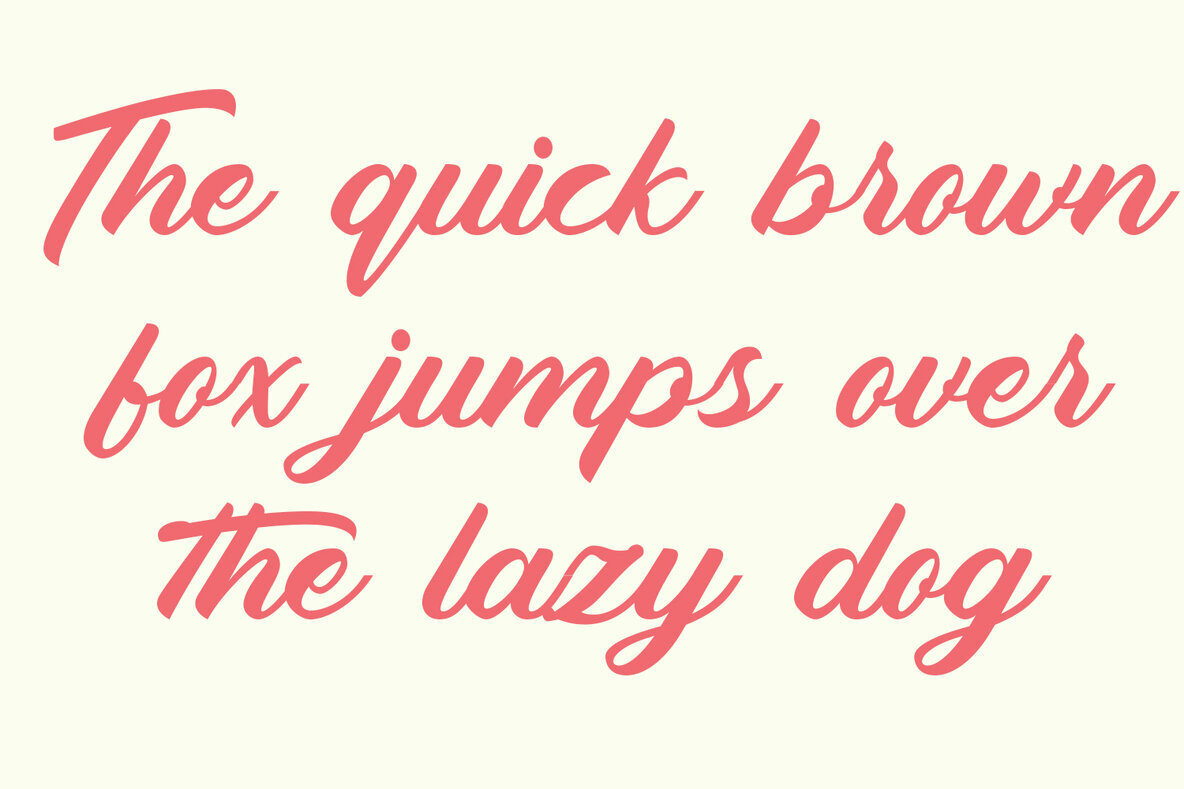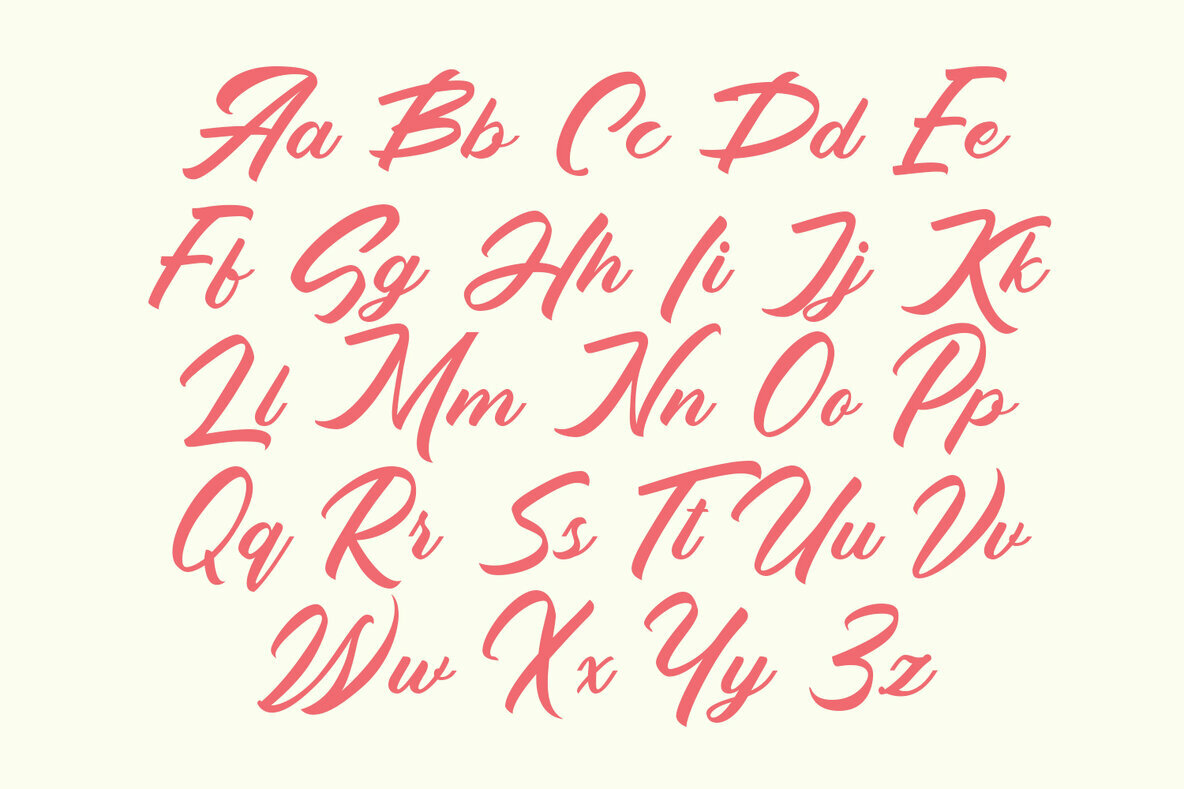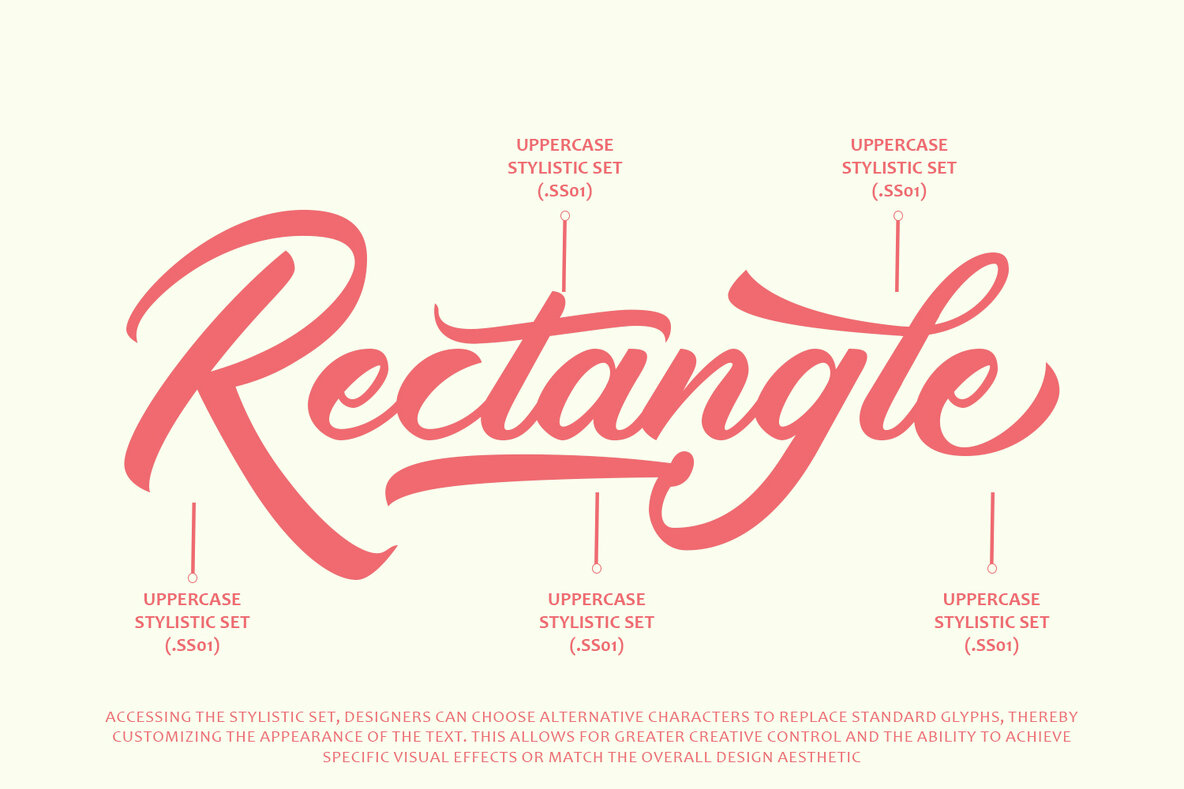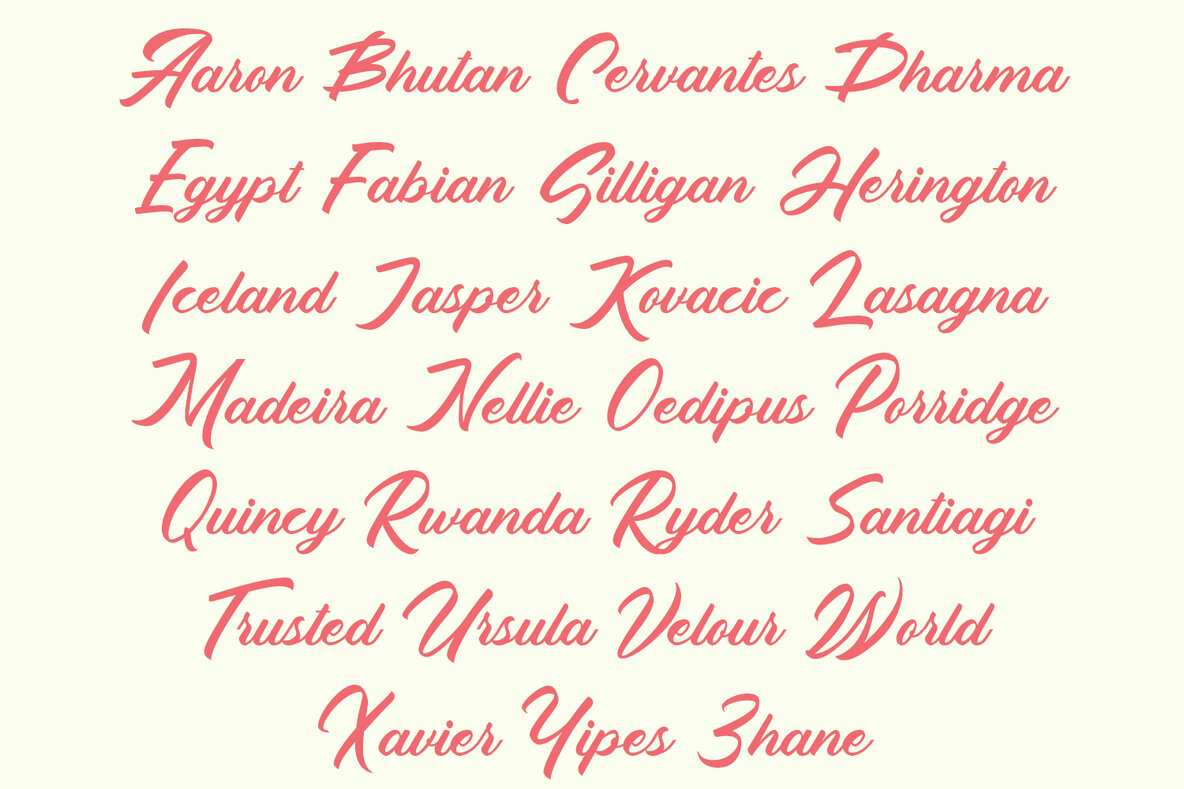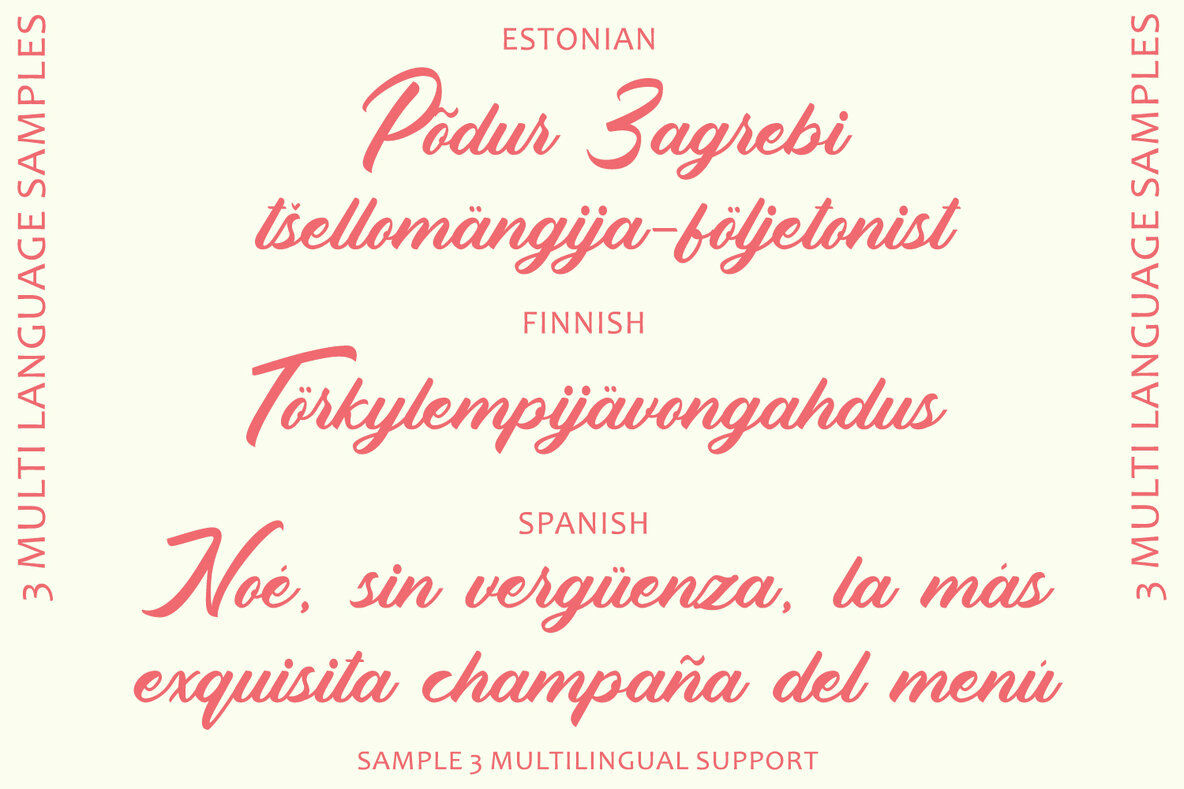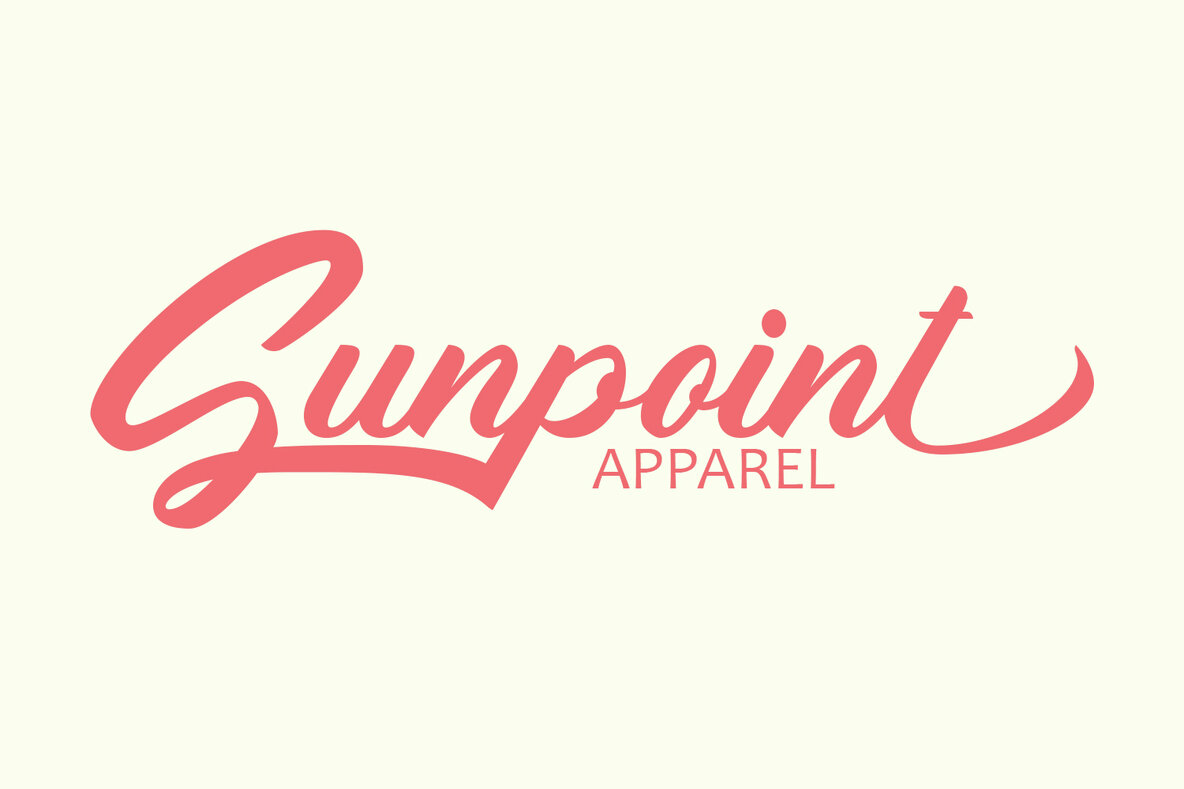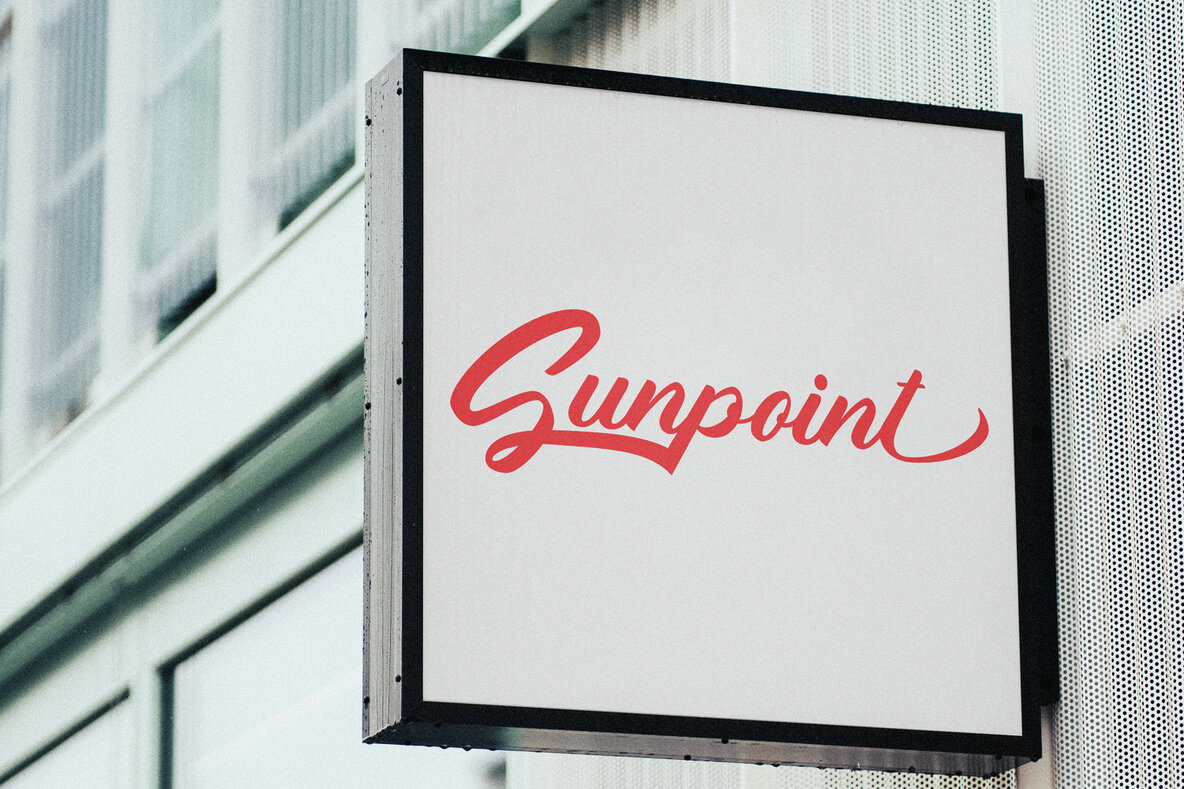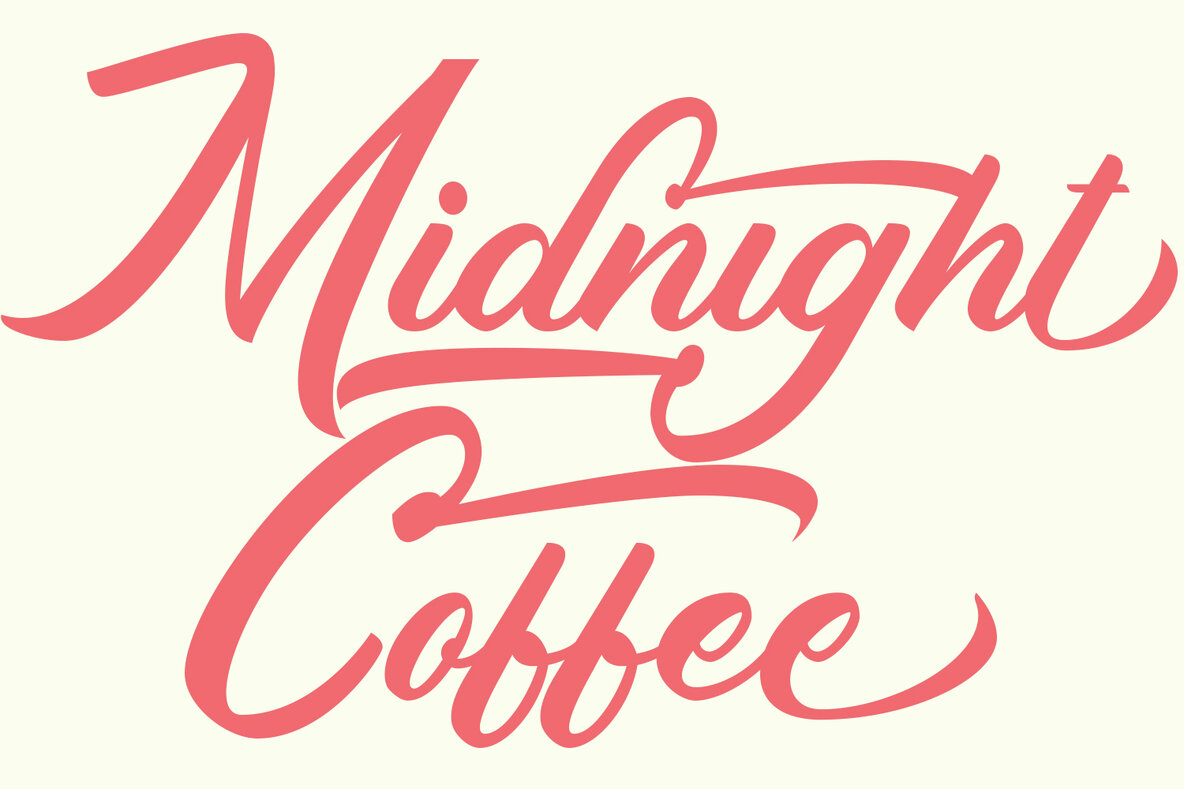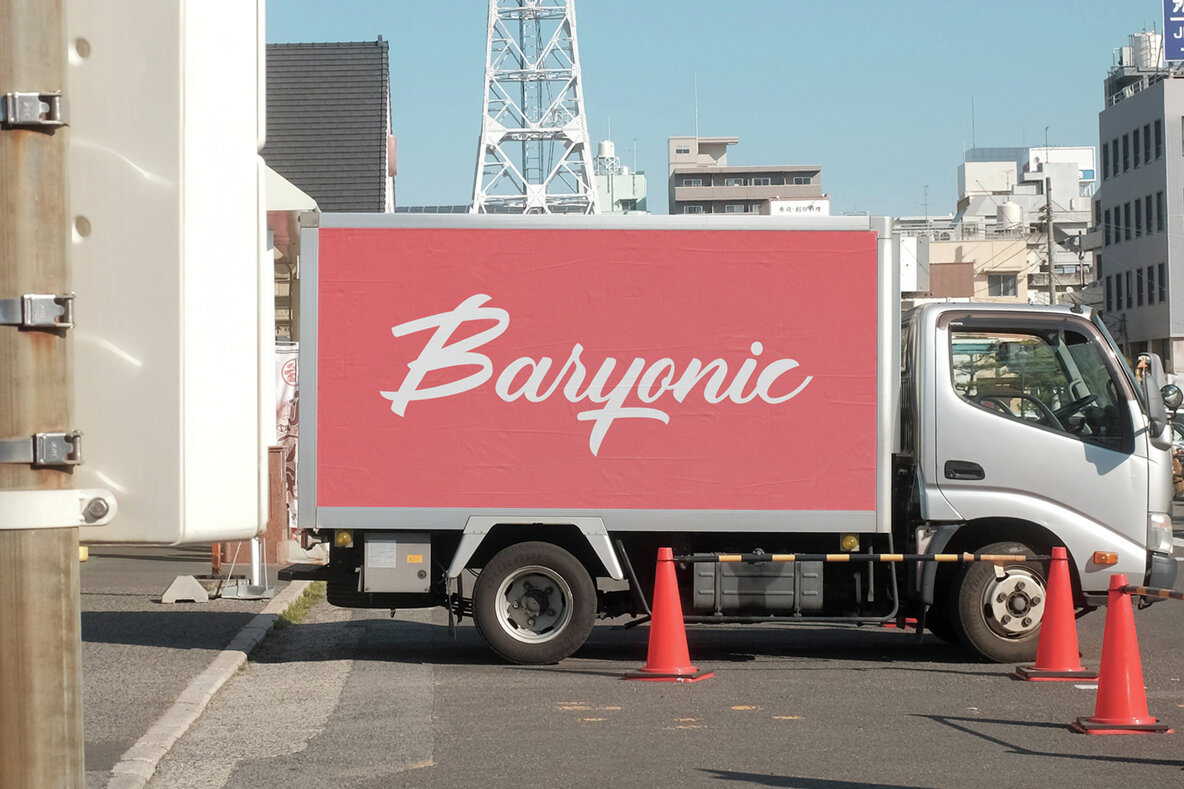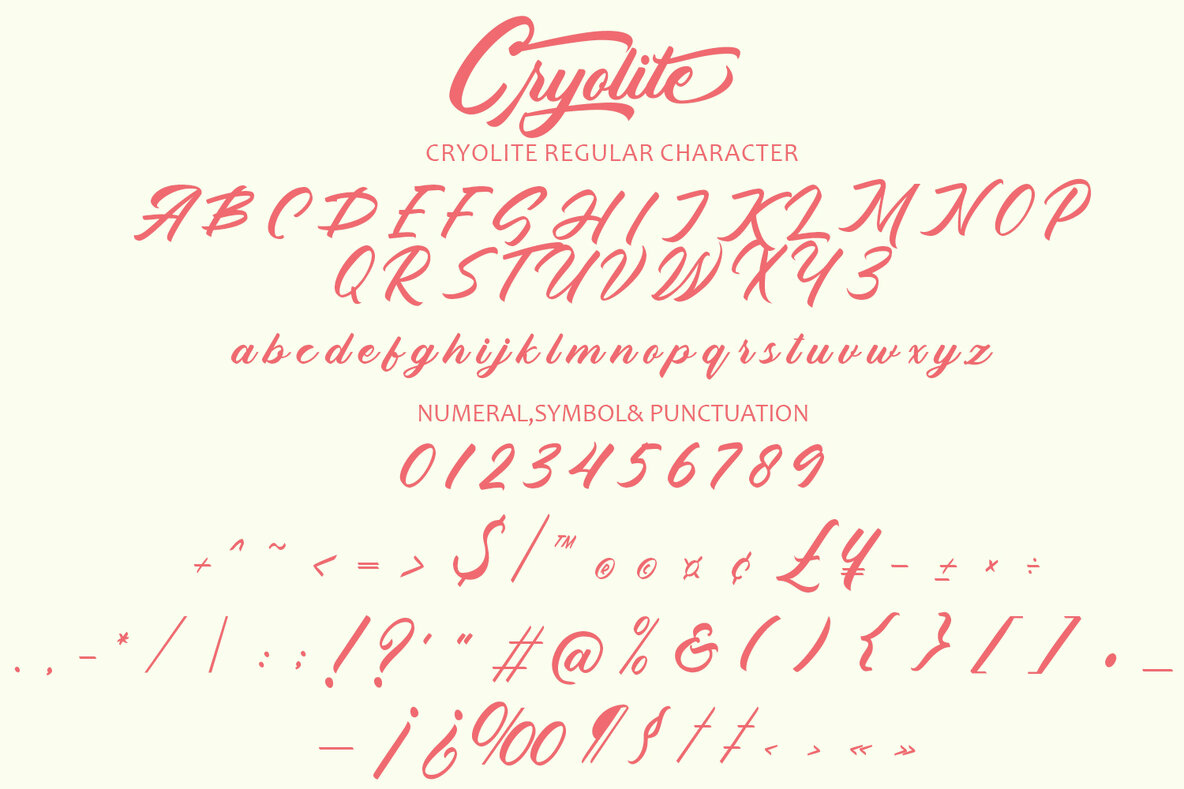
Cryolite
"Cryolite - Brush Script Font" captures the essence of hand-painted brush strokes, infusing designs with a dynamic and expressive quality. Its fluid and spontaneous brush stroke style brings energy and movement, ideal for projects needing a lively touch. The natural textures and subtle imperfections characteristic of hand-painted lettering add authenticity and depth, enhancing visual appeal and providing a tactile quality to the font.
Despite its casual appearance, Cryolite is highly versatile and adaptable across various design contexts, from branding and packaging to posters, invitations, and social media graphics. The font's expressive brush script style allows for emotional, spontaneous, and personal typography, making it perfect for conveying warmth, friendliness, or playfulness. Customization options, such as alternate characters, ligatures, or swashes, provide flexibility for designers to tailor typography to their specific preferences, allowing for creative experimentation and the achievement of the desired look and feel.